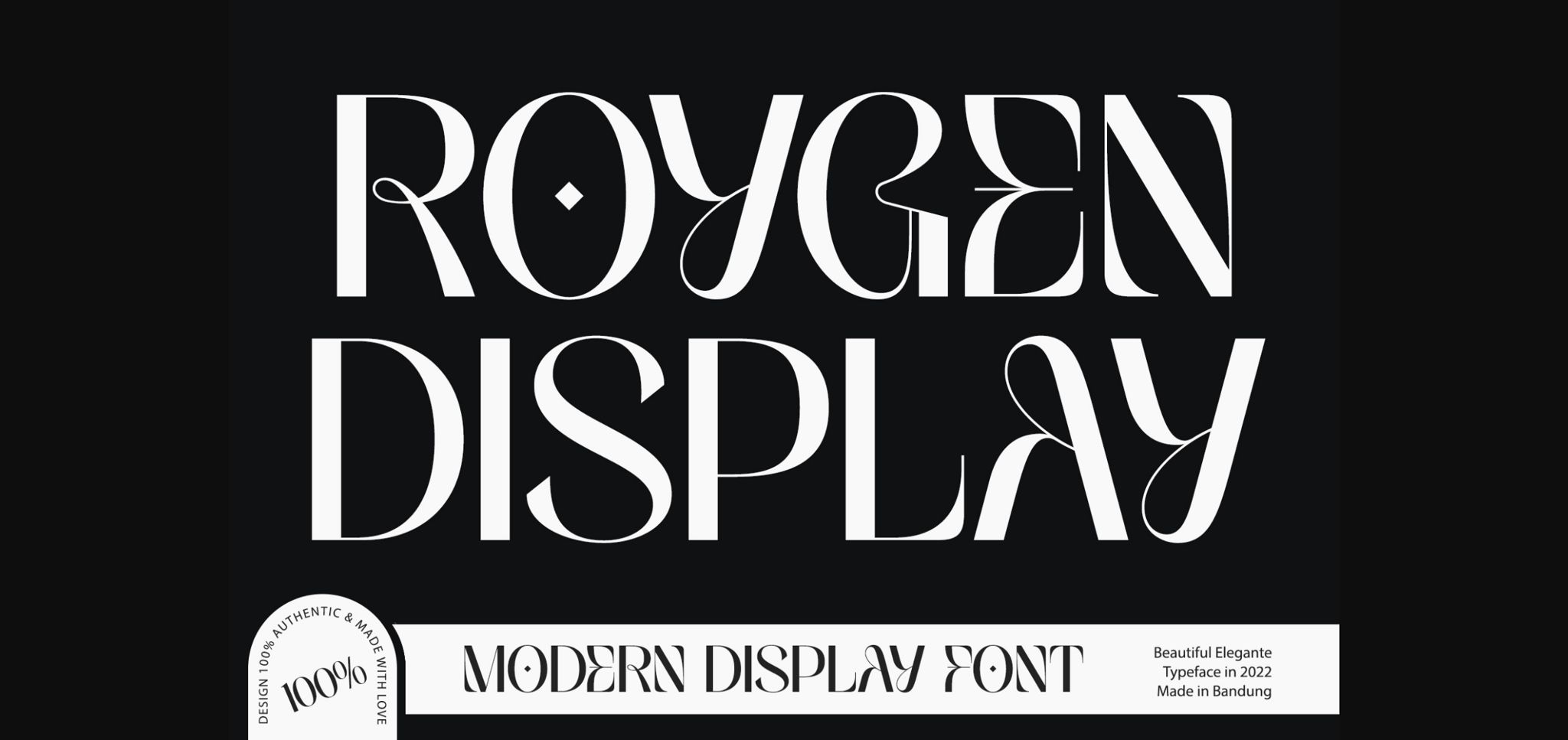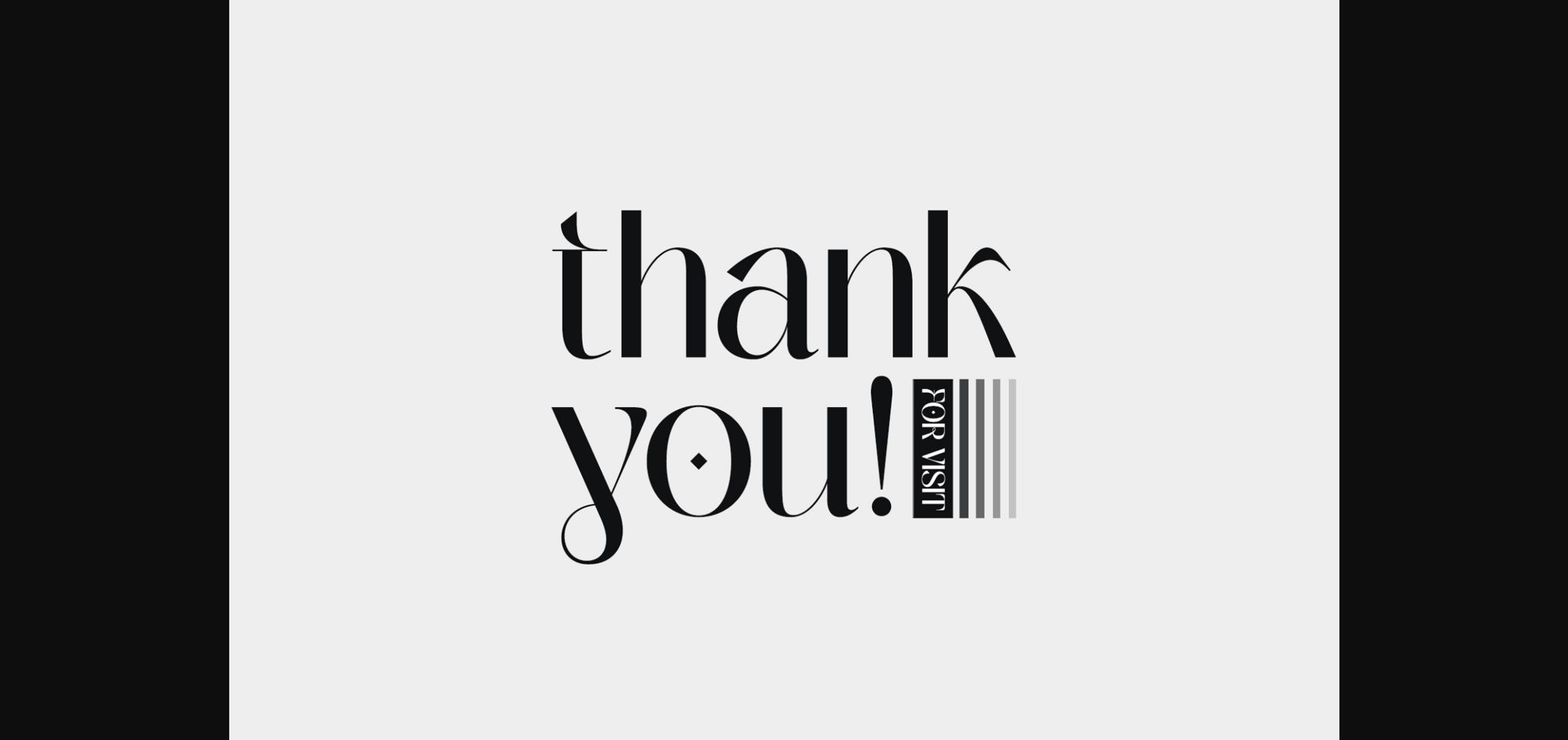
About Roygen Display Font
Roygen Display is an incredibly stylish and fashionable sans serif font that exudes elegance and class. This font was particularly crafted for those who need a beautiful and refreshing look to their designs.